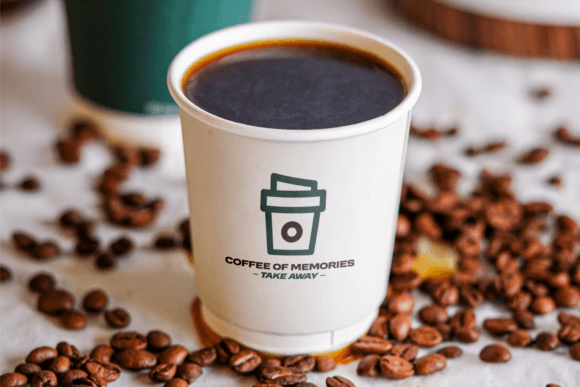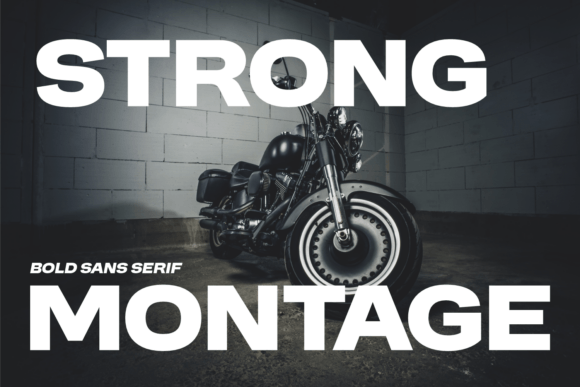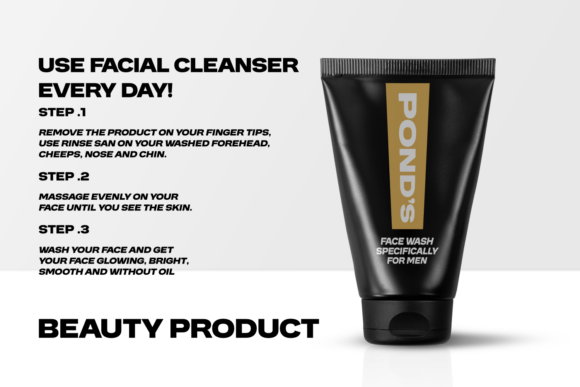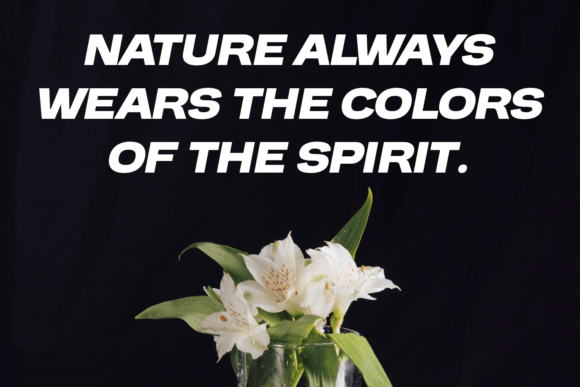
Introduction to Manto Font Font
Fonts play a crucial role in design, and the Manto Font font is a typeface that brings both character and versatility to any project. Whether you’re working on a branding project, a website, or a print design, the Manto Font font offers a unique style that can elevate your work.
Manto is a bold, sans-serif font with clean, thick lines and a modern look.
Itβs easy to read and works well for titles, logos, and other designs where you want words to stand out .
Key Features of Manto Font Font
Why Choose Manto Font Font?
The Manto Font font is more than just a typeface β it’s a design tool that helps you communicate your message with style and clarity. Its unique character set and versatile design make it suitable for a wide range of applications, from elegant invitations to bold headlines.
With its carefully crafted letterforms and balanced proportions, the Manto Font font ensures readability and visual appeal across all mediums.
What makes Manto Font font special?
The Manto Font font stands out with its unique design, exceptional readability, and versatility across various design applications.